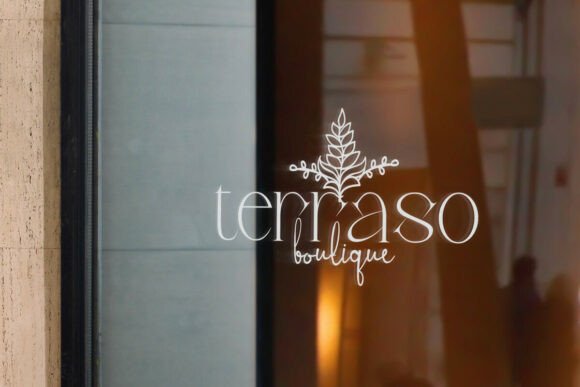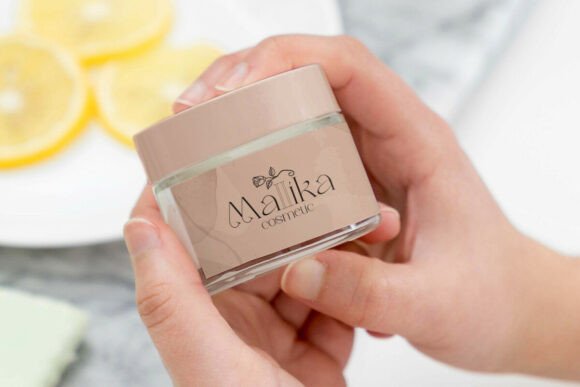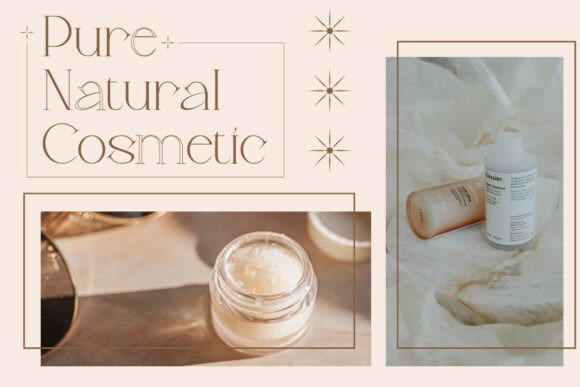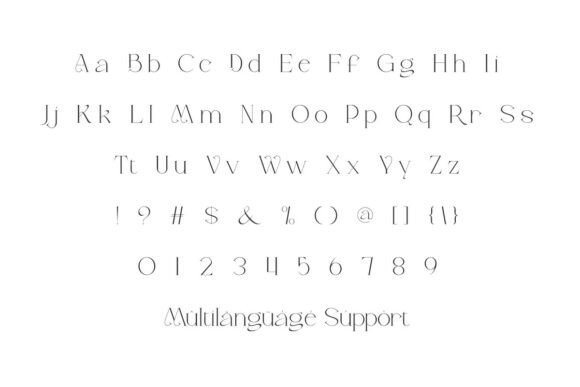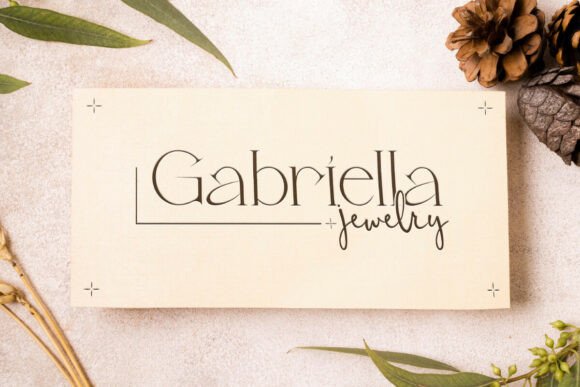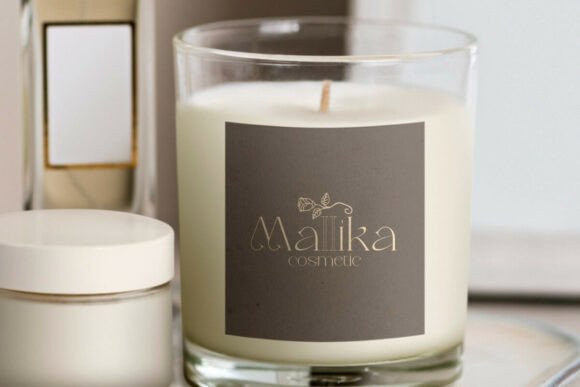
Introducing Derovana Font: Elevate Your Designs with Luxury and Elegance
Are you a designer or crafter looking for a typeface that exudes high-end fashion and sophistication? Look no further than Derovana Font, a stunning serif font that is sure to elevate your designs to the next level. With its dramatic contrast, graceful curves, and luxurious letterforms, Derovana is the perfect choice for creating statement-making designs that demand attention.
The Characteristics of Derovana Font
Derovana Font is a high-fashion serif font that boasts a range of characteristics that set it apart from other typefaces. Its delicate swashes and refined letterforms give it a luxurious feel that is perfect for high-end branding, magazine headers, packaging, and wedding stationery. The font’s dramatic contrast and graceful curves add a touch of elegance and sophistication, making it ideal for designs that require a level of refinement and poise.
Perfect for Upscale Designs
Derovana Font is specifically designed for upscale designs that require a level of luxury and sophistication. Its artistic details and refined letterforms make it perfect for creating statement-making designs that demand attention. Whether you’re working on a high-end fashion brand, a luxury product, or a special occasion such as a wedding, Derovana Font is the perfect choice.
Use Cases for Derovana Font
Derovana Font is a versatile typeface that can be used in a range of design applications, including:
- Branding: Use Derovana Font to create a luxurious and sophisticated brand identity that reflects your company’s high-end values.
- Magazine Headers: Add a touch of elegance and refinement to your magazine headers with Derovana Font’s dramatic contrast and graceful curves.
- Packaging: Elevate your product packaging with Derovana Font’s luxurious letterforms and delicate swashes.
- Wedding Stationery: Make your wedding stationery truly special with Derovana Font’s refined and artistic details.
Why Choose Derovana Font?
So why choose Derovana Font over other typefaces? Here are just a few reasons:
- Unique and Luxurious: Derovana Font is a truly unique and luxurious typeface that will set your designs apart from the rest.
- High-Quality: Derovana Font is a high-quality typeface that is designed to deliver exceptional results in a range of design applications.
- Elegant and Refined: Derovana Font’s elegant and refined details make it perfect for designs that require a level of sophistication and poise.
Tips for Using Derovana Font
To get the most out of Derovana Font, here are a few tips to keep in mind:
- Use it sparingly: Derovana Font is a luxurious typeface that is best used sparingly to add emphasis and elegance to your designs.
- Experiment with different sizes: Derovana Font looks great in a range of sizes, from large headlines to smaller body text.
- Pair it with other fonts: Derovana Font pairs well with other serif and sans-serif fonts, making it easy to create a cohesive and harmonious design.
In conclusion, Derovana Font is a stunning serif font that is perfect for designers and crafters looking to elevate their designs with luxury and elegance. With its dramatic contrast, graceful curves, and luxurious letterforms, Derovana is the perfect choice for creating statement-making designs that demand attention. Whether you’re working on a high-end fashion brand, a luxury product, or a special occasion such as a wedding, Derovana Font is sure to deliver exceptional results.